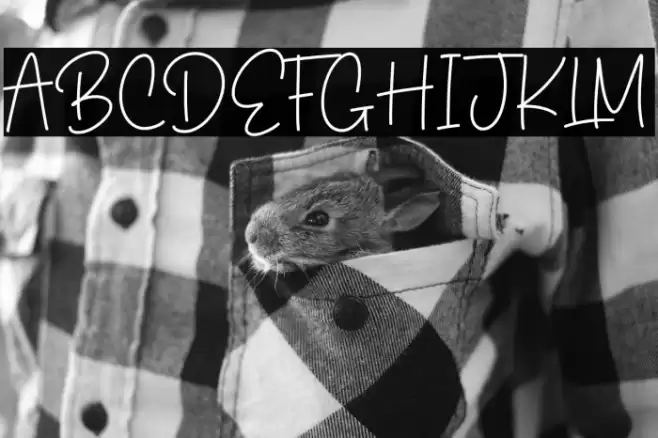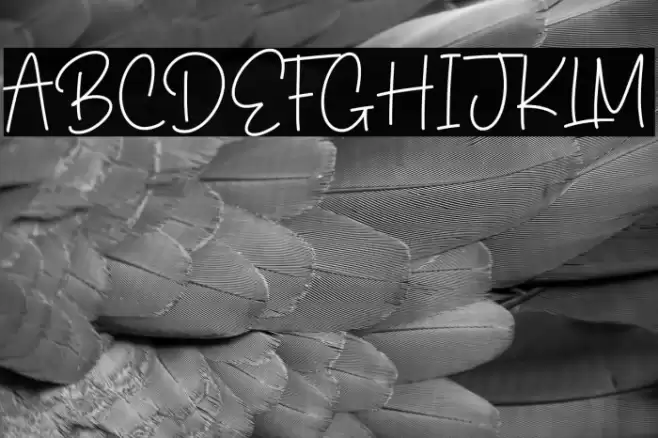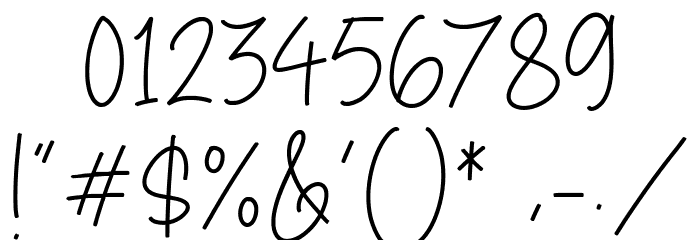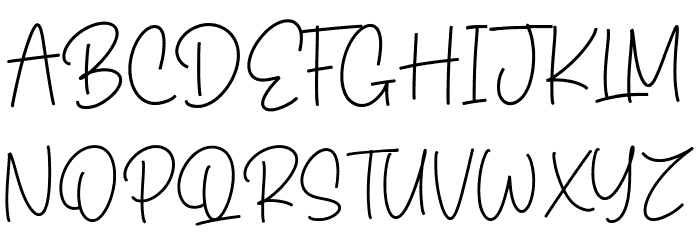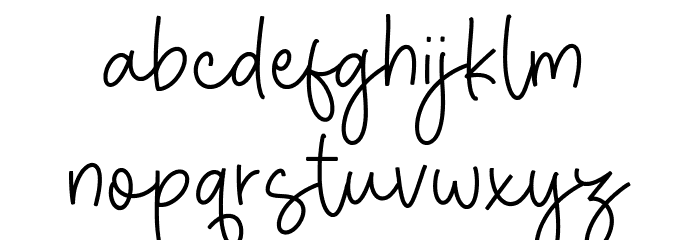
Sweet Candies Font
Sweet Candies Description
This playful and whimsical font features a handwritten style with a casual and friendly appearance. The letters are slightly slanted, giving a dynamic and lively feel. The strokes are consistent in width, providing a uniform look across all characters. The uppercase letters are tall and slightly narrow, while the lowercase letters are more rounded and open, enhancing readability. The numbers and special characters maintain the same playful style, making them suitable for various creative applications. This font is perfect for projects that require a personal touch or a fun, informal vibe.
A playful, handwritten font with a casual and friendly style from Uncategorized fonts.
- Font: Sweet Candies
- Proposed Projects: Ideal for greeting cards, children's books, playful branding, and social media graphics.
- Overall Style: Casual, Playful
- Use Case: Headlines, Informal text, Creative projects